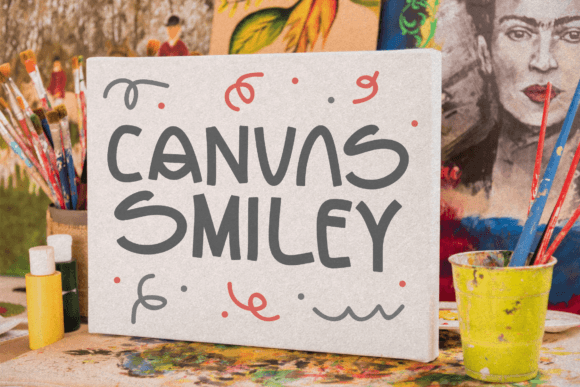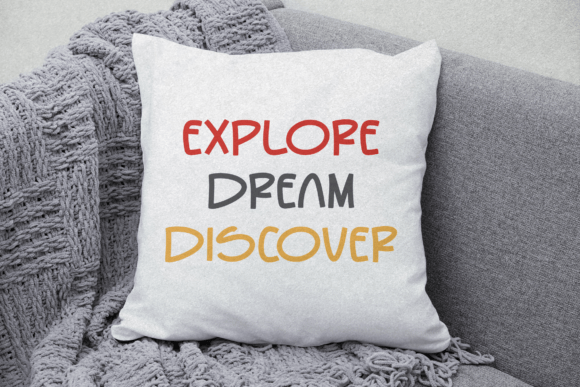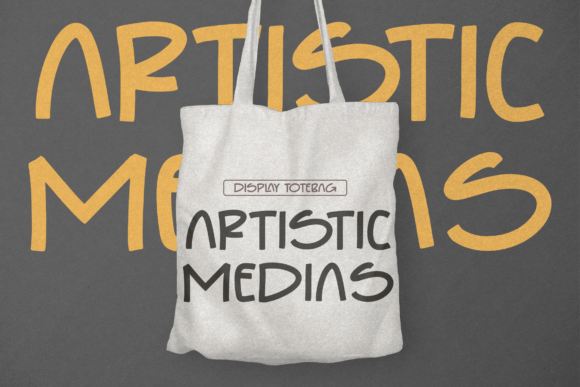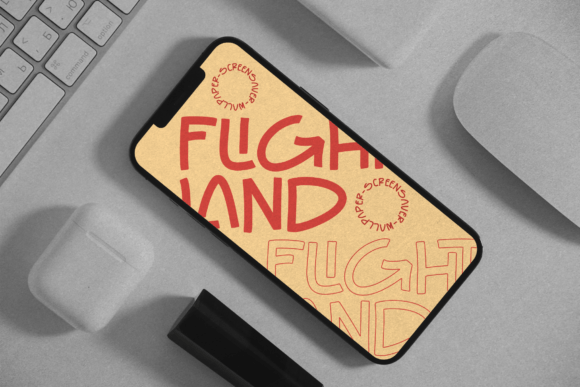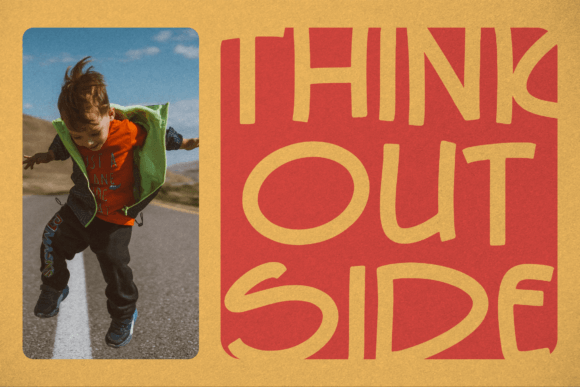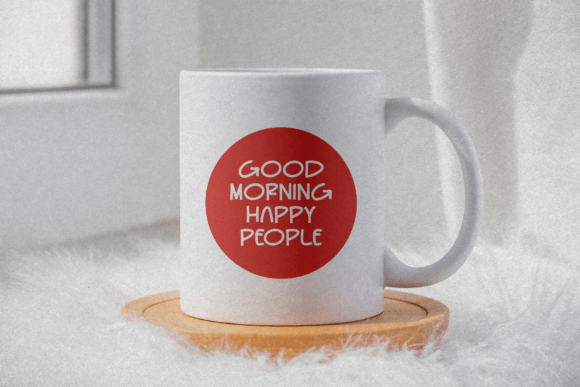
Introduction to Onslaught Font
Onslaught – Display Sans Font , from Letterfabric Studio, suitable for any projects such as: logos, branding projects, homeware designs, product packaging, mugs, quotes, posters, shopping bags, t-shirts, book covers, name card, invitation cards, greeting cards, label, photography, watermark, special events, and all your other lovely projects that need a beautiful script taste.
Key Features of Onslaught Font
Why Choose Onslaught Font?
Onslaught Font offers exceptional quality and versatility, making it a valuable addition to your design toolkit. Whether you’re creating for personal projects or commercial use, Onslaught Font delivers professional results.